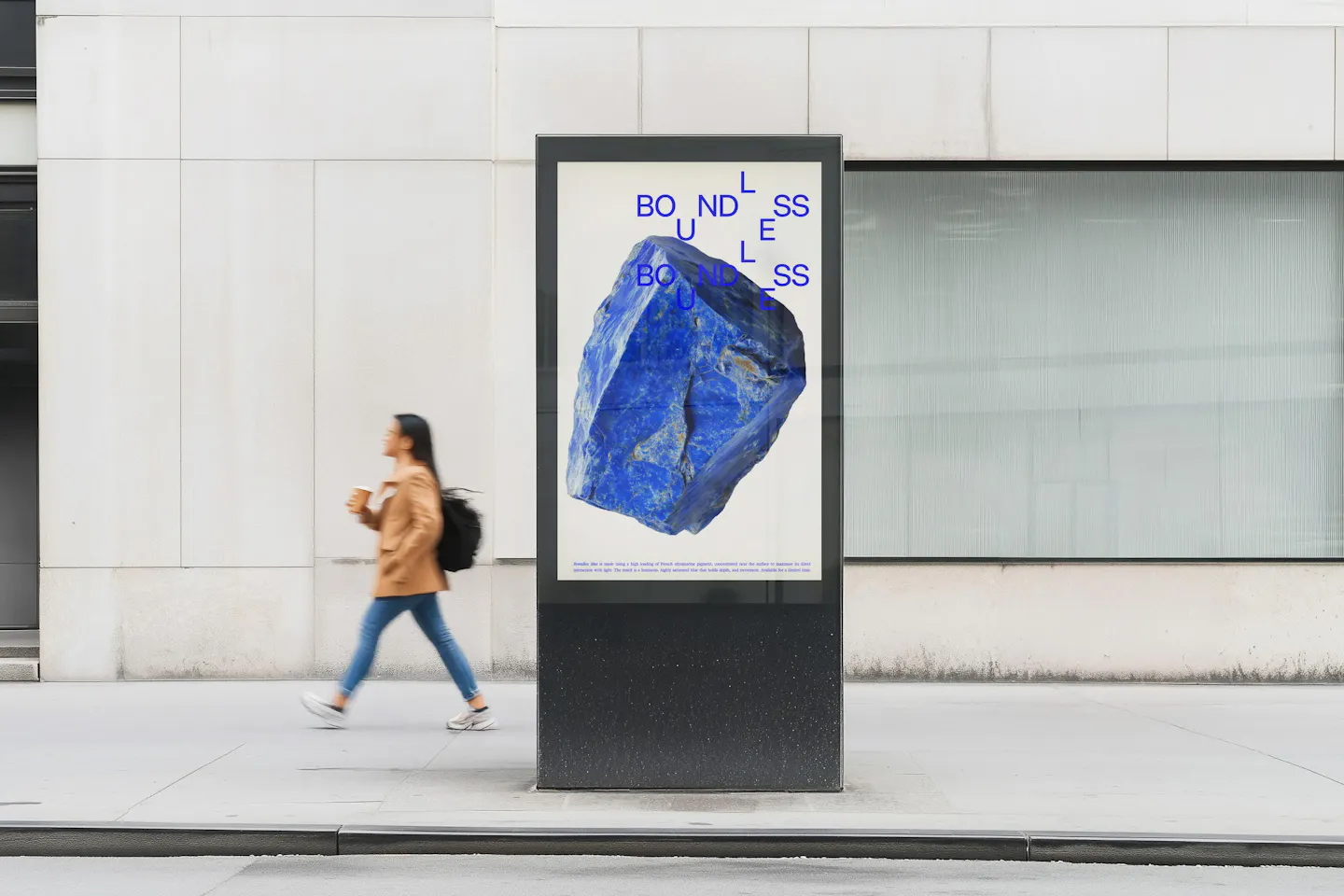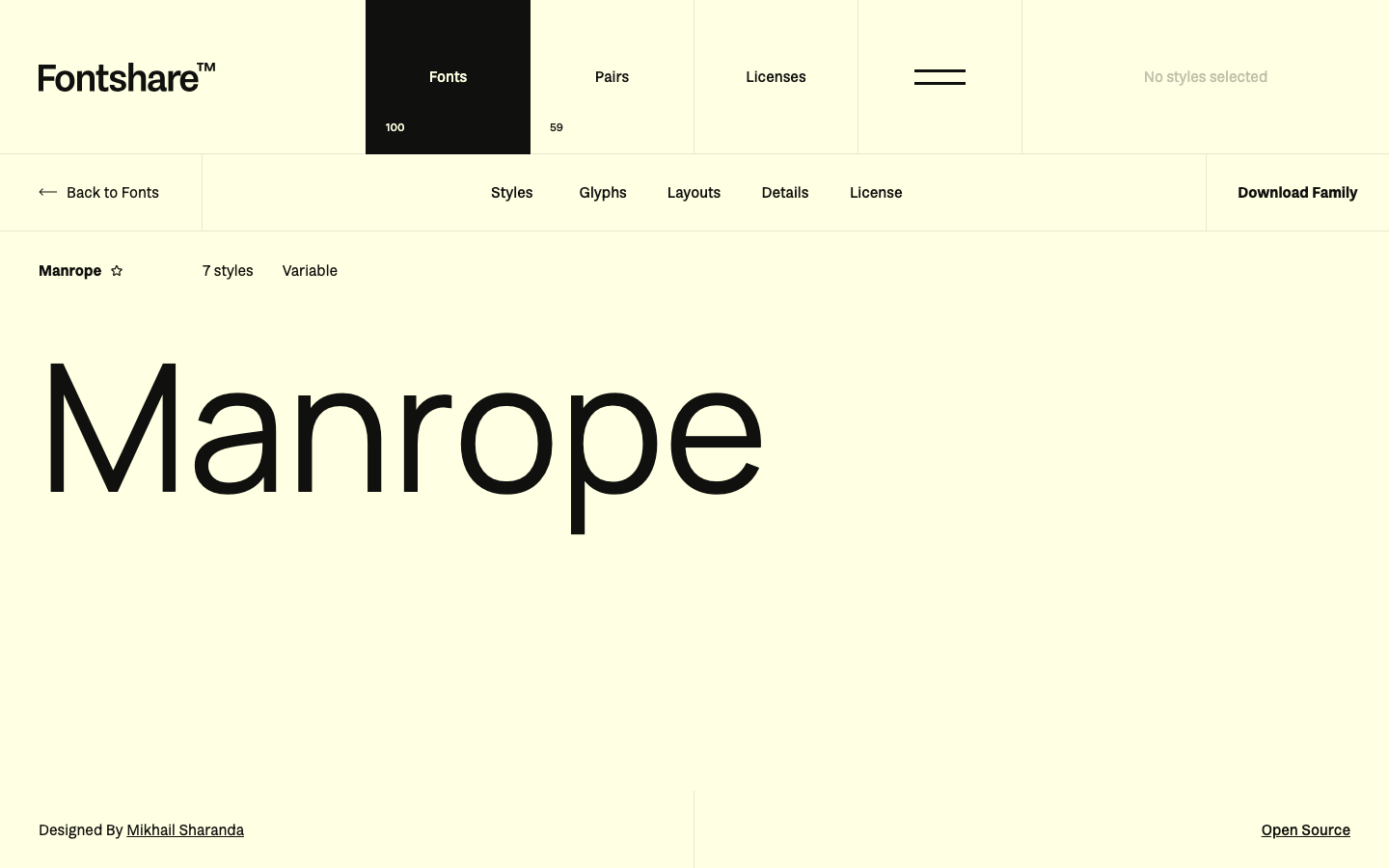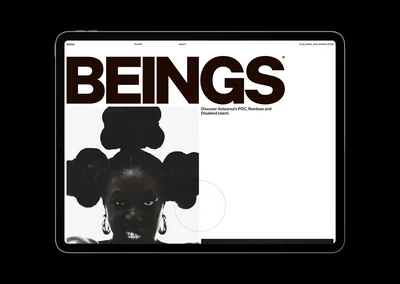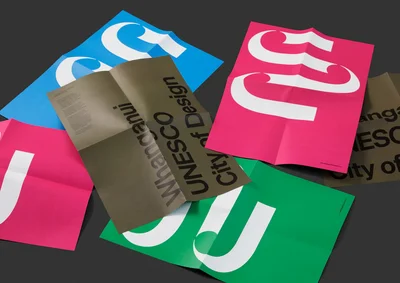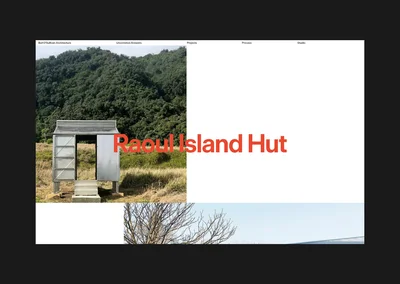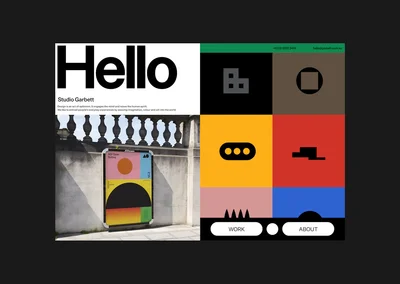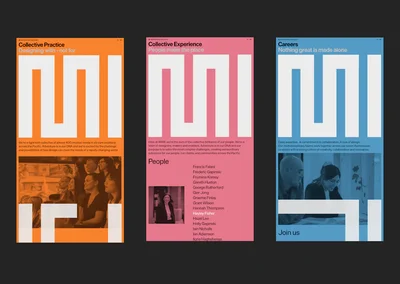
Die Grotesk vs Manrope
Die Grotesk and Manrope are both sans-serif typefaces sharing a modern foundation. Where Die Grotesk leans neo-grotesque, minimal, Manrope brings rounded. Compare which suits your Branding project.
Design overlap:20%
| Feature | Die Grotesk | Manrope |
| Variable Font | Yes | Yes |
| Weights | Variable | Variable |
| Language Support | latin, latin-extended, cyrillic | latin, latin-extended, cyrillic |
| Source | Klim Type Foundry | Mikhail Sharanda |
Weight & Style Coverage
Recommended: Die Grotesk
- neo-grotesque, minimal design character
- Suited for Corporate and Signage
- From klim-type-foundry
Consider: Manrope
- rounded design character
- Suited for Apps
- From mikhail-sharanda